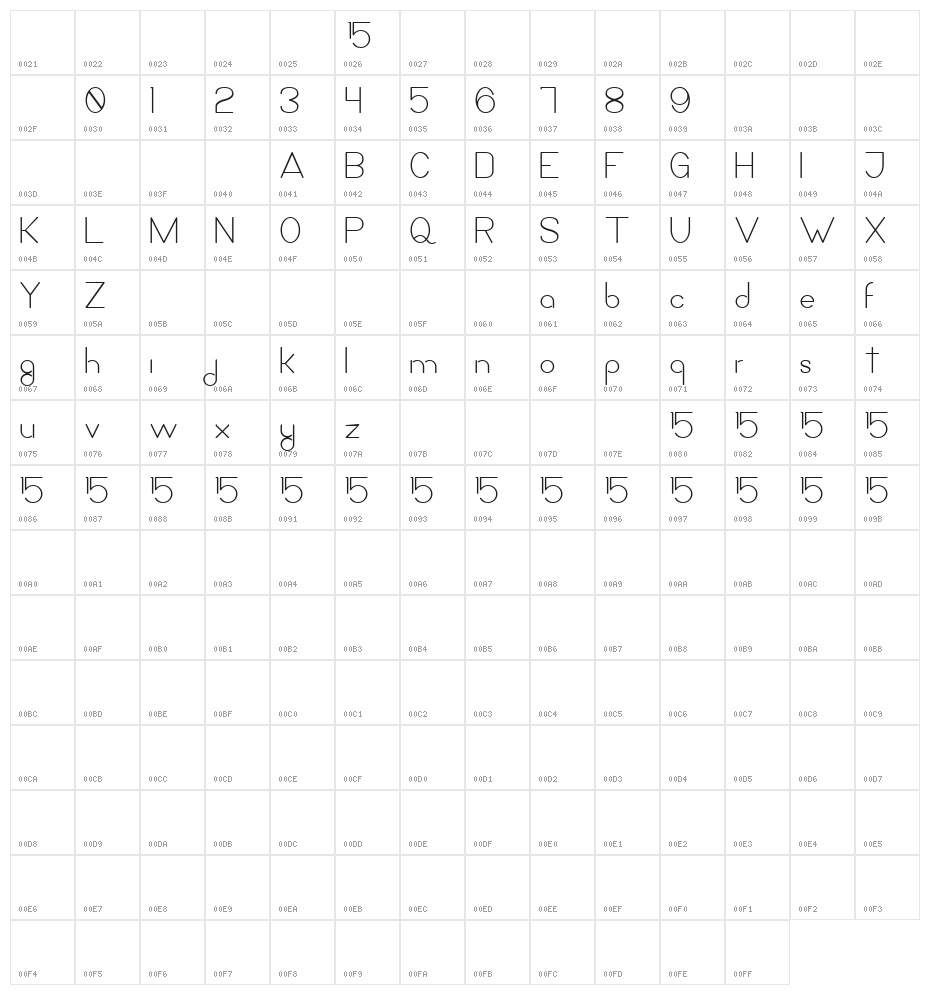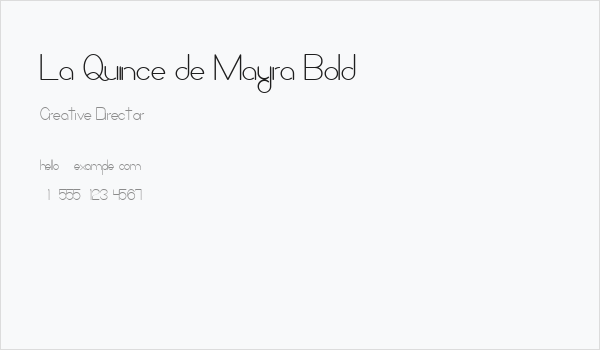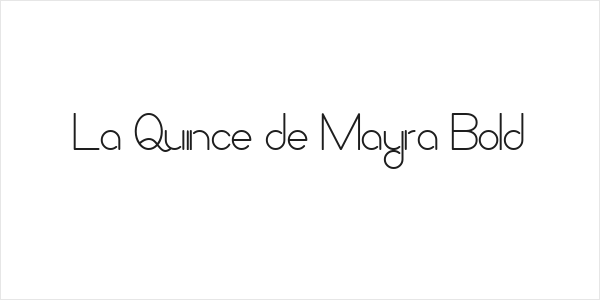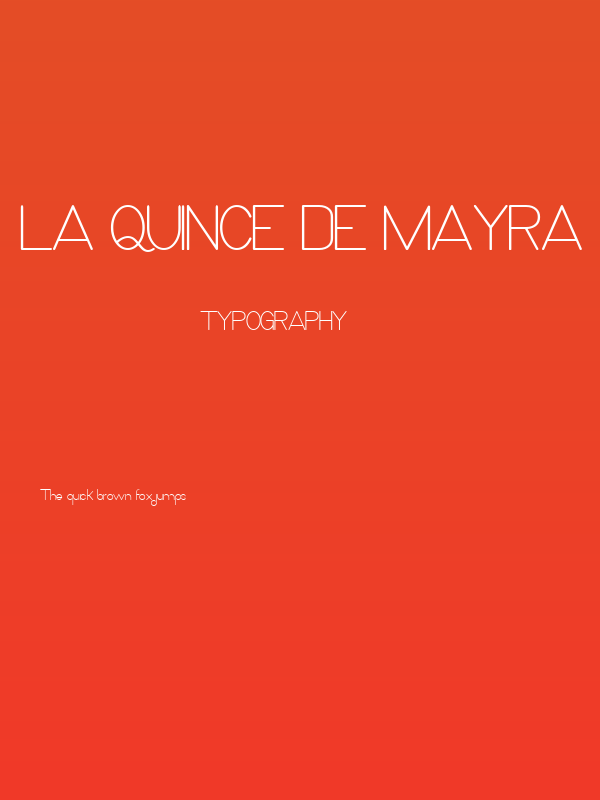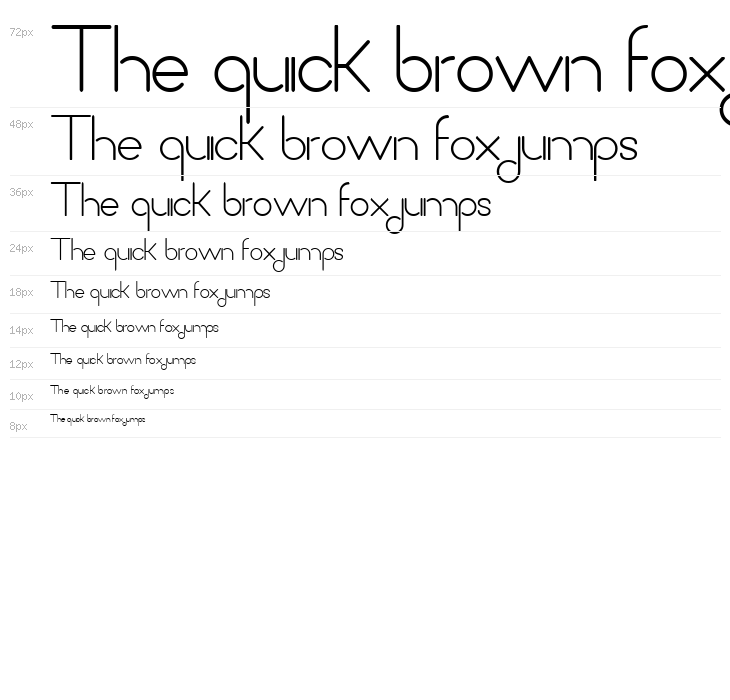
La Quince de Mayra Bold Font
La Quince de Mayra Bold Description
This font features a modern, geometric design with clean lines and a minimalist aesthetic. The characters are constructed with a consistent stroke width, giving them a uniform appearance. The uppercase letters are tall and narrow, while the lowercase letters maintain a similar height, creating a cohesive look. The numerals are distinctive, with rounded edges that complement the overall style. Special characters are designed to match the geometric theme, making this font suitable for contemporary design projects.